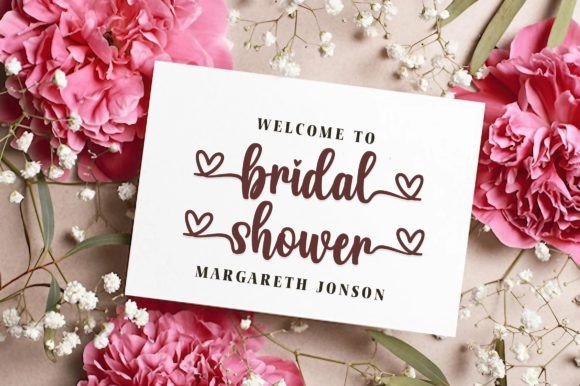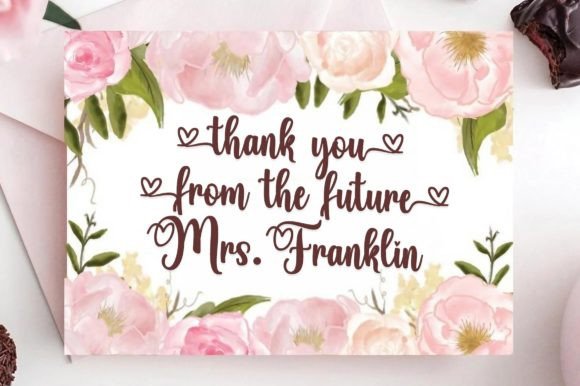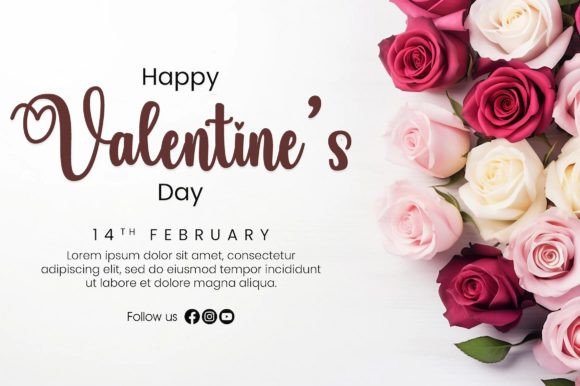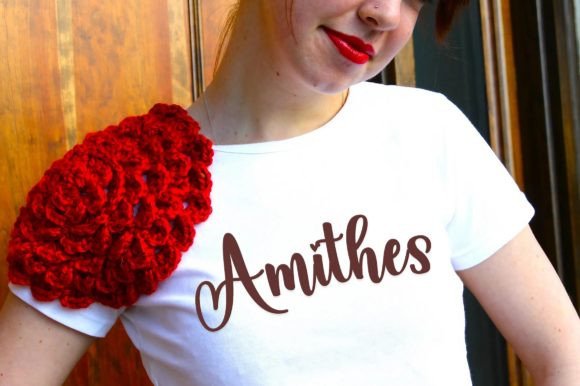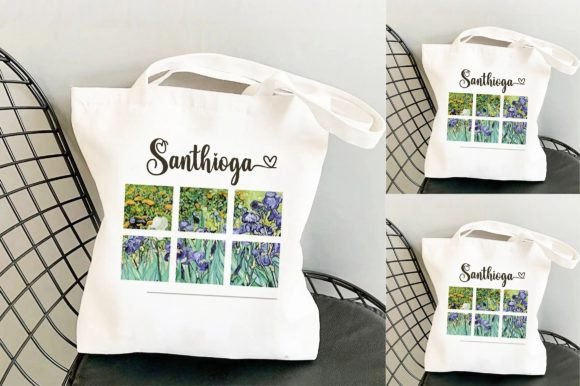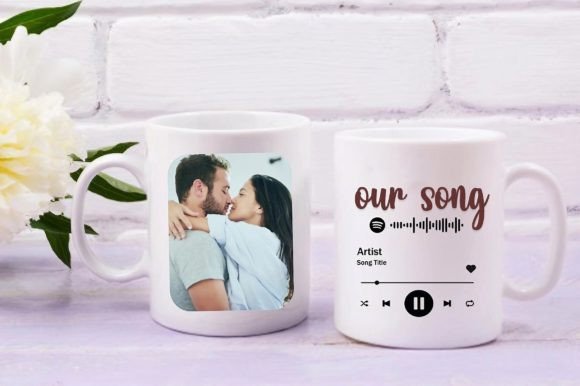
Discover the Charm of Amithes Font: Elevate Your Designs with a Lovely Handwritten Style
In the world of typography, few fonts manage to capture the essence of elegance and freshness as beautifully as Amithes. This lovely handwritten font is designed to bring a laid-back sophistication to your design projects, making it an ideal choice for creatives looking to add a personal touch to their work. With its organic lines and flowing strokes, Amithes exudes a carefree vibe that is sure to resonate with designers and crafters alike.
The Characteristics of Amithes Font
Amithes is more than just a font; it’s a design element that can elevate your projects with its warm and distinct touch. Here are some of its key characteristics:
- Handwritten Elegance: Amithes boasts a handwritten style that is both elegant and approachable. Its letters are crafted to convey a sense of personal touch, making it perfect for designs that require a human feel.
- Laid-Back Sophistication: The font’s laid-back elegance sets it apart from more traditional fonts. It brings a sense of freshness and modernity to any design, making it suitable for a wide range of applications.
- Organic Lines and Flowing Strokes: The organic nature of Amithes’ lines and strokes gives it a natural, effortless look. This quality makes the font highly versatile, capable of adapting to various design contexts.
Applications of Amithes Font
Amithes is incredibly versatile, making it suitable for a variety of design projects. Here are some of the areas where this font truly shines:
- Branding: Use Amithes to give your brand a unique and memorable identity. Its distinct touch can help your brand stand out in a crowded market.
- Invitations: Whether you’re designing wedding invitations, event invites, or any other type of formal or informal invitation, Amithes adds a touch of elegance and warmth.
- Social Media Visuals: Enhance your social media presence with Amithes. The font’s fresh and carefree vibe makes it perfect for creating engaging and visually appealing content.
Why Choose Amithes Font?
With so many fonts available, why should Amithes be your go-to choice? Here are a few compelling reasons:
- Uniqueness: Amithes offers a unique style that can set your designs apart from the rest. Its distinctive look ensures that your projects will have a personal and memorable touch.
- Versatility: This font is highly versatile, suitable for both digital and print designs. Whether you’re working on a website, a brochure, or a social media post, Amithes can adapt to any context.
- Ease of Use: Despite its elegant appearance, Amithes is easy to read and use in various design scenarios. Its clarity makes it an excellent choice for body text as well as headings.
Tips for Using Amithes Font Effectively
To make the most of Amithes, consider the following tips:
- Pair with Complementary Fonts: Combine Amithes with clean, sans-serif fonts for a balanced look. This contrast can help highlight the unique qualities of Amithes.
- Experiment with Colors: Amithes looks great in a variety of colors. Don’t be afraid to experiment with different hues to find the perfect match for your design.
- Play with Sizes: Use Amithes in various sizes to create visual hierarchy in your designs. Its elegance shines through at any size, from large headings to smaller body text.
Amithes font is a beautiful addition to any designer’s toolkit. Its unique blend of elegance, freshness, and versatility makes it an excellent choice for a wide range of projects. Whether you’re working on branding, invitations, or social media visuals, Amithes can help you create designs that are not only visually appealing but also memorable. Discover the charm of Amithes and elevate your designs with its lovely handwritten style.